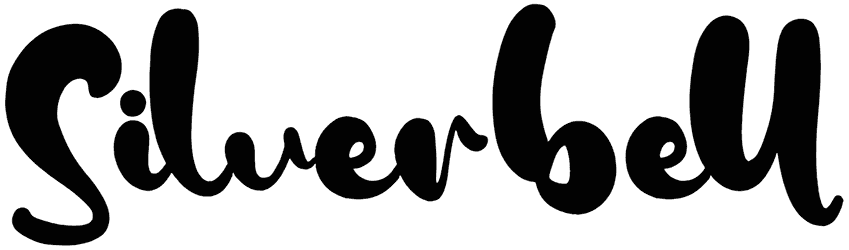
Silverbell Font
Silverbell helps you tell your story in the format you like and is a great tool for creating your brand identity. This script font gives your writing a playful vibe, which is great for attracting people who like childish spaces. Balloon mode, thick and borderless letters in this font can change the space in your favor and create a different look on clothes, packaging, and posters.